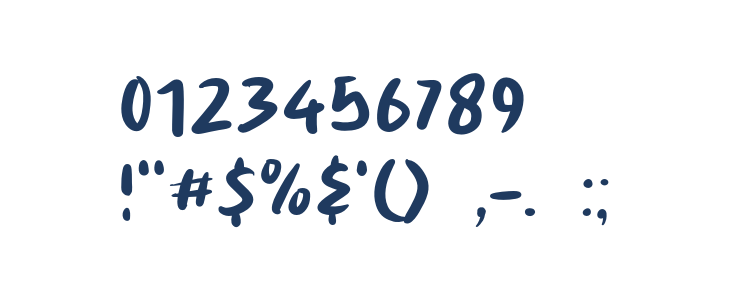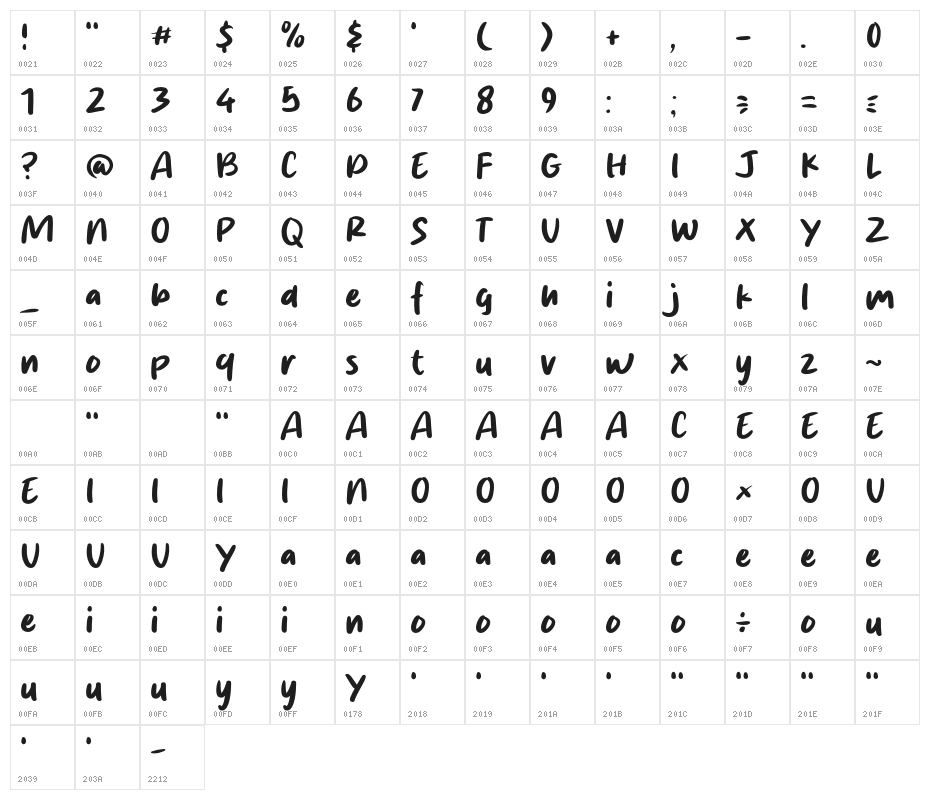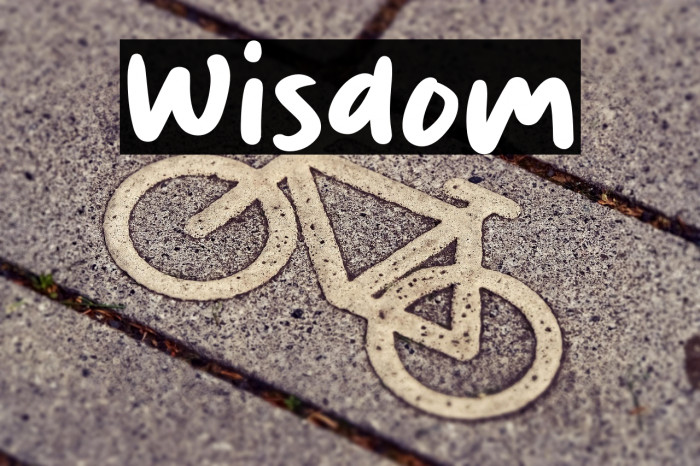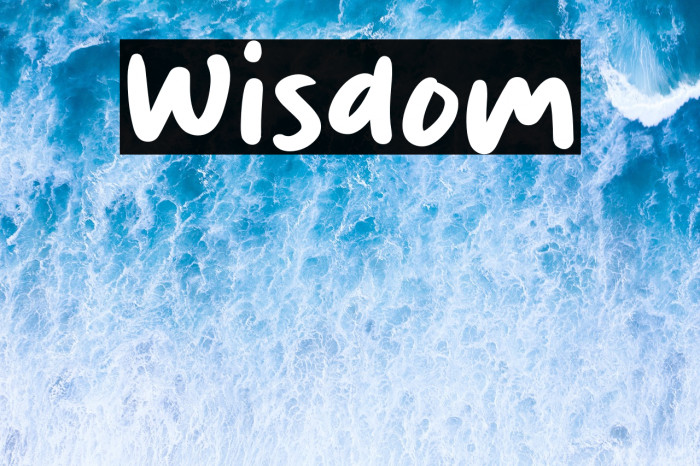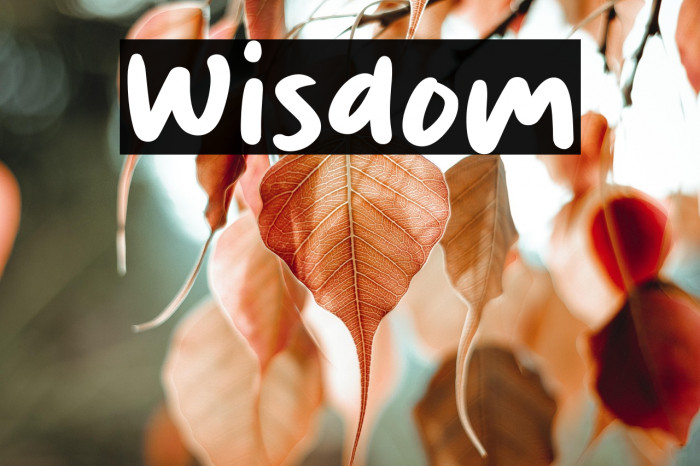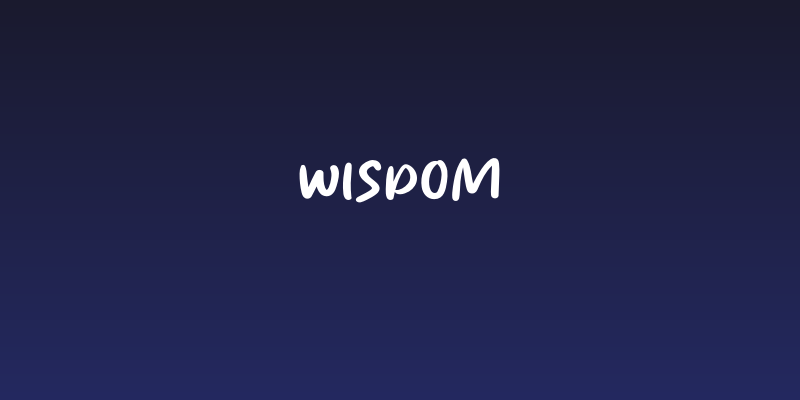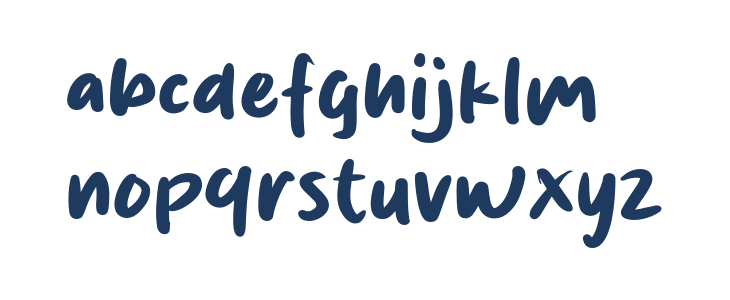
Wisdom Font
Wisdom Description
This font exudes a playful and casual handwritten style, characterized by its bold and rounded strokes. The letters are slightly slanted, giving a dynamic and informal appearance. The uppercase and lowercase letters maintain a consistent flow, with a slight variation in stroke thickness that adds to its organic feel. The numbers and special characters are equally expressive, complementing the overall aesthetic. This font is ideal for projects that require a personal touch or a friendly, approachable vibe.
| Proposed Projects | Ideal for greeting cards, children's books, playful branding, and social media graphics. |